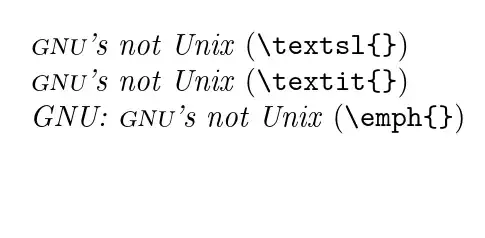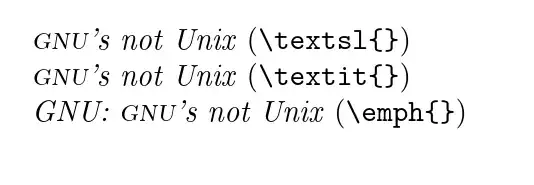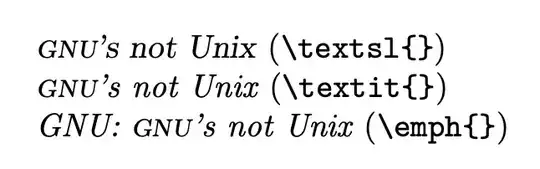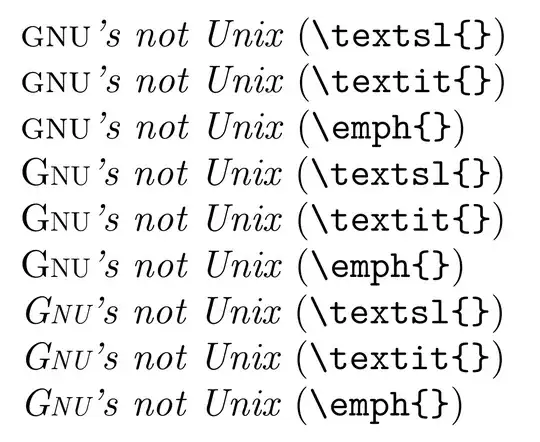
I use \setmainfont{CMU Serif} to change the font. But CMU Serif doesn’t support small caps emphasis font as you can see with the following MWE:
Witch produce the following rendering:
Rendering of the MWE
But the default font (witch seems to be European Computer Modern) produce a well render according to this tread.
So is theire a way to set European Computer Modern just for small caps inside emphasis context (or reverse)?
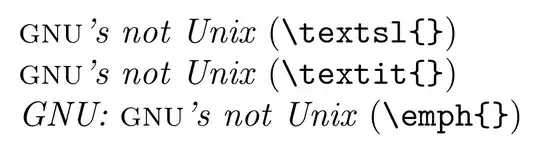
You can slant the upright small caps
Or use Latin Modern small caps enter image description here
• Hmm… The slanting still ugly. It’s not a real emphasis. But we could use European Compuuter Modern for all small caps. – fauve Sep 24 '22 at 12:48
• ec fonts are not Unicode encoded opentype so would take some more setup and some lack of warning about incorrect character if you used non ascii letters – David Carlisle Sep 24 '22 at 12:52
I found a solution working with Latin Modern as described here https://tex.stackexchange.com/questions/79086/how-to-use-all-variants-of-latin-modern-roman-with-fontspec/79093#79093 with LMRomanCaps10-Oblique instead of ec. – fauve Sep 24 '22 at 13:25
• @fauve ah I tried LM but fontspec didn't find the right font automatically: specifying that variant explicitly works as you say, I added it above – David Carlisle Sep 24 '22 at 15:08
If you just need slanted/italic small caps for Latin letters, you can substitute with Latin Modern:
Maybe we can fake \textsc.